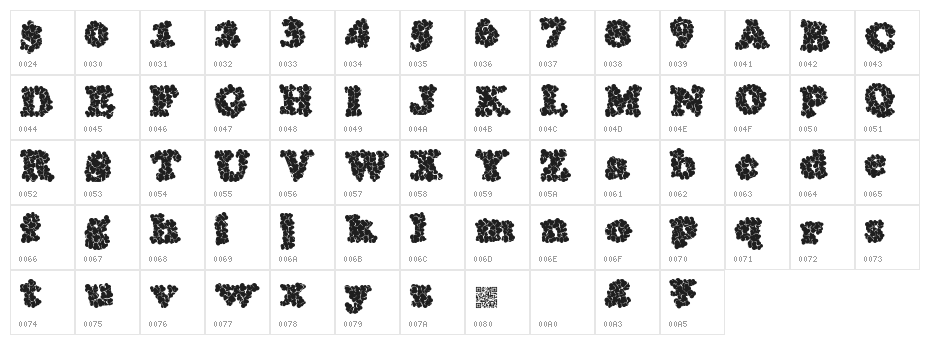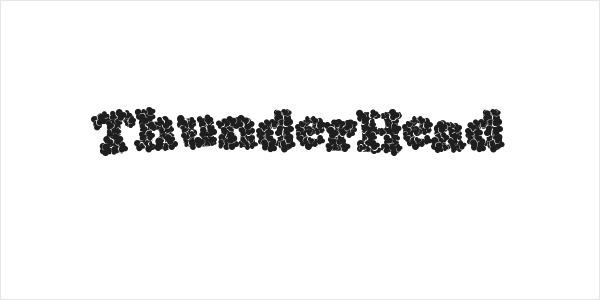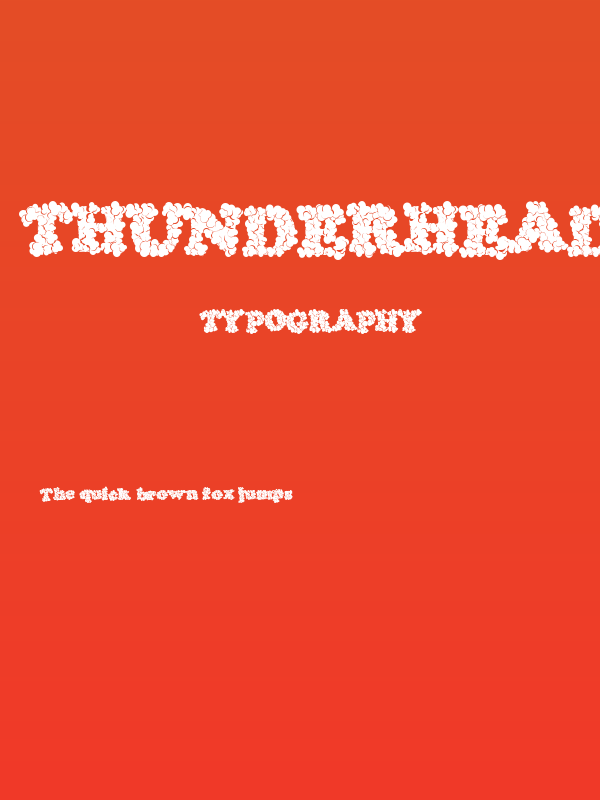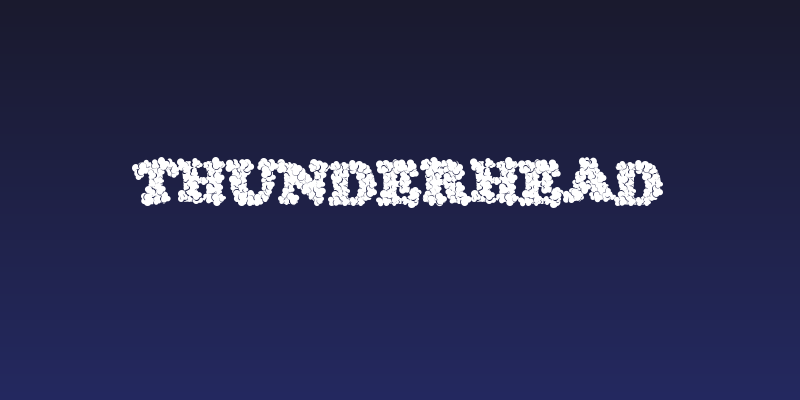
ThunderHead Font
| Gesamtstil | Playful, Whimsical |
| Vorgeschlagene Projekte | Ideal for children's book covers, playful branding, party invitations, and creative posters. |